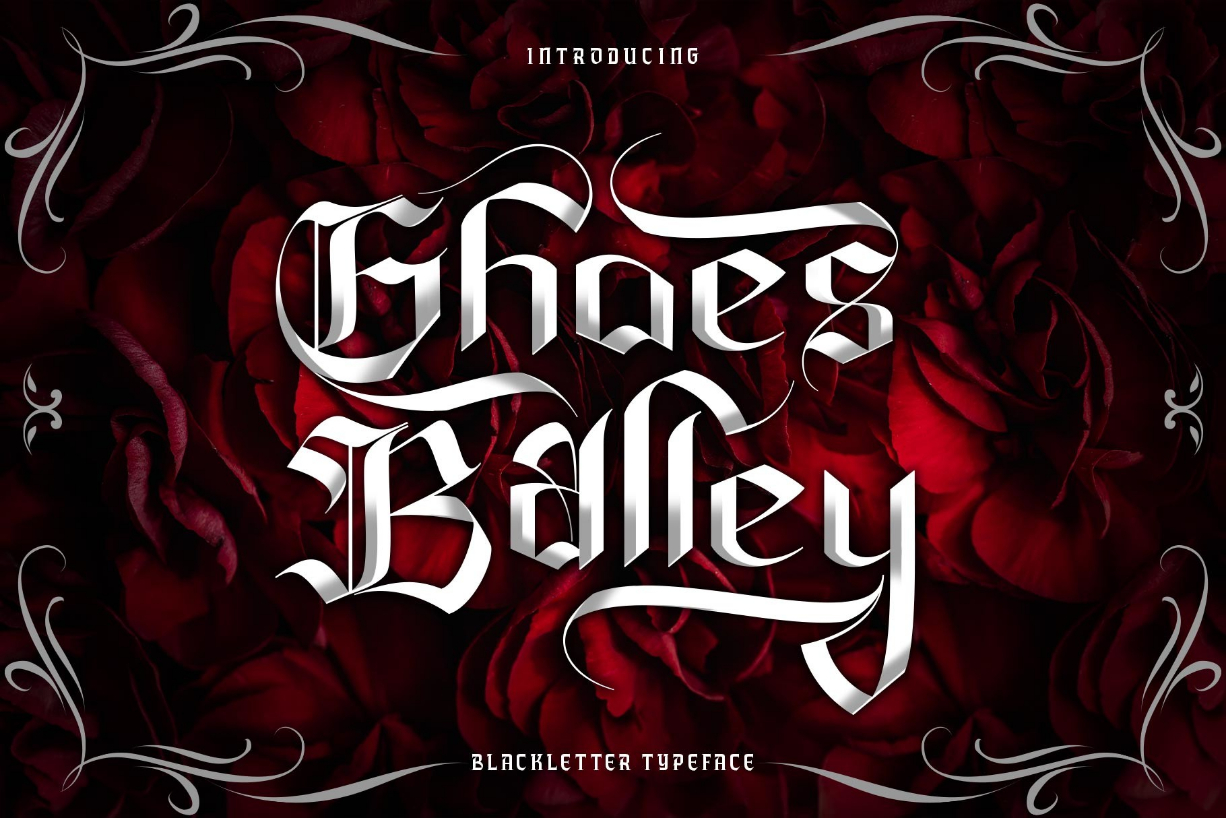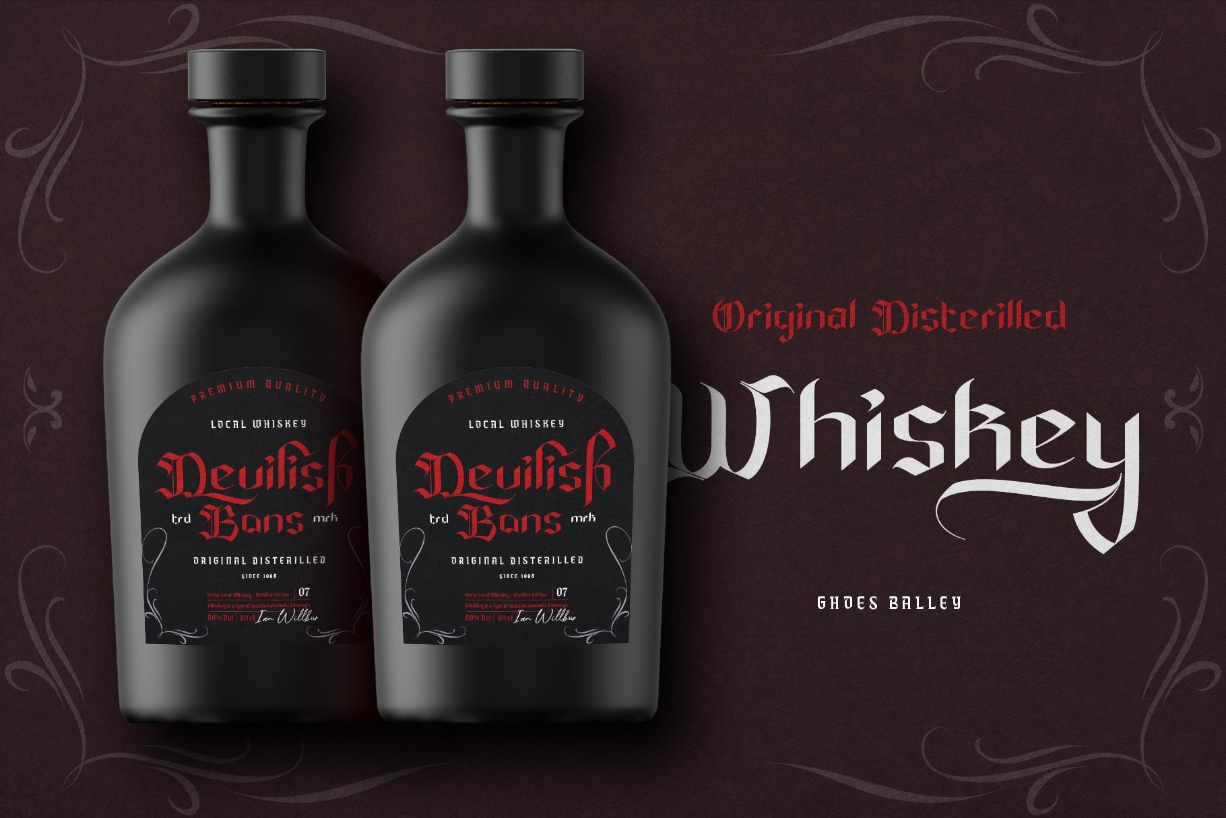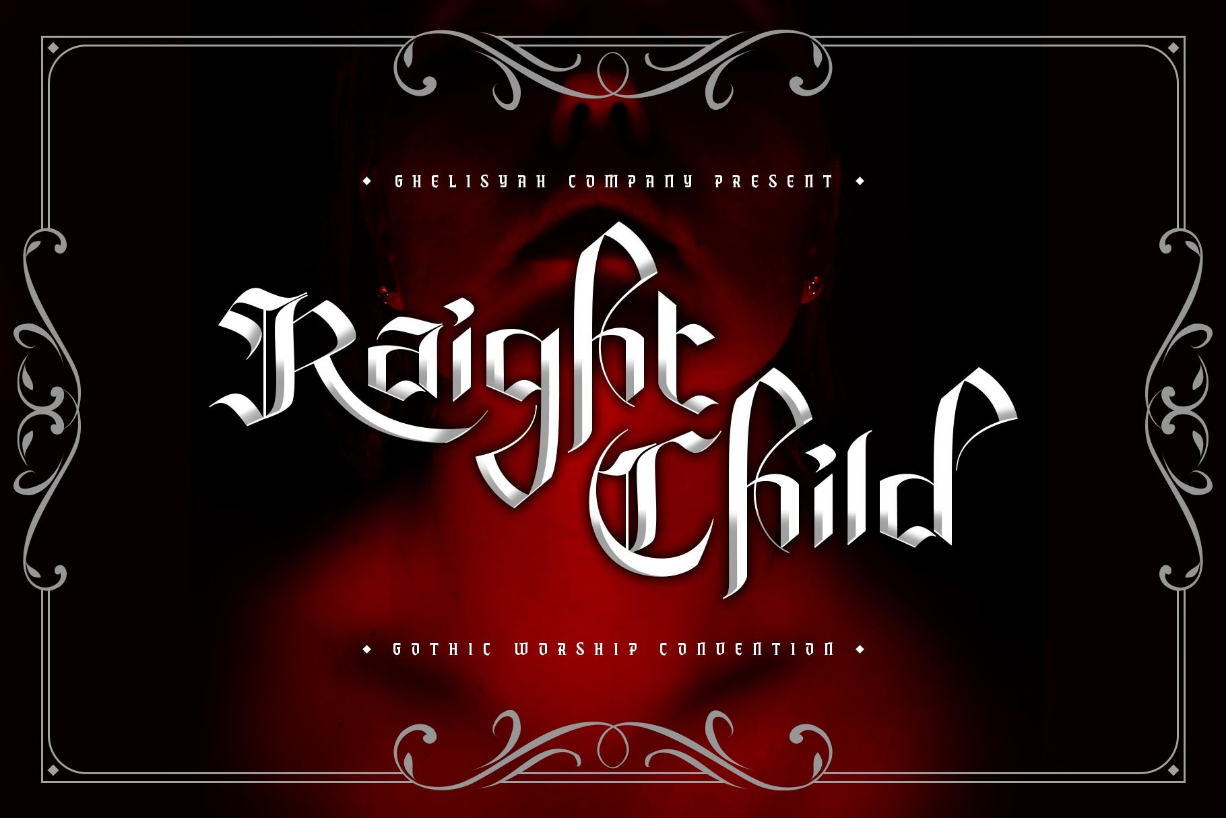
About Ghoes Balley Font
Ghoes Balley is a bold and stylish blackletter font. This font is PUA encoded which means you can access all glyphs and swashes with ease!